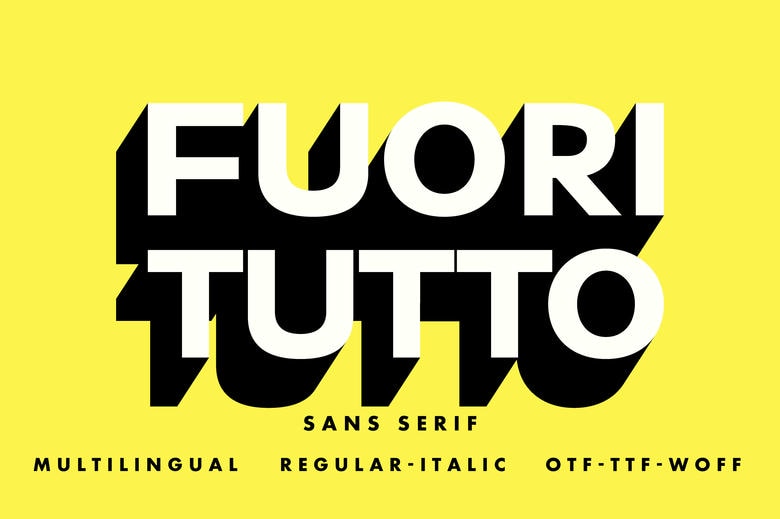
Fuori Tutto Font
Fuori Tutto is a minimalist sans serif typeface that easily captures the spirit of clean lines and precision in geometry. One to the modern artist, this type is a masterpiece of the art of turning things bare simple and putting a breath of life into your projects with a unique modern touch. Feel the eternal beauty of minimalism as Fuori Tutto welcomes the sense of legibility.
The simplicity of the elements has been used to emphasize the cleanness of form and ensures that your message is in the foreground, with no distractions. It is a typeface that can fit into your design vision, be it a headline that catches the eye or body text that carries the reader, this typeface fits with such grace.
Fuori Tutto Sans Serif Font